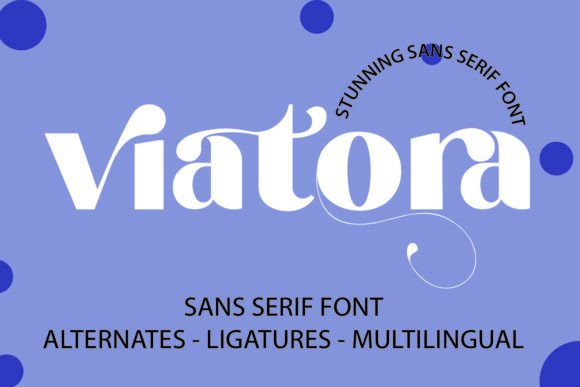
Are you looking for the perfect font to elevate your branding game? Look no further than Viatora Font, the best font for branding designed by hmtypes1. Viatora is a stylish and unique sans-serif font that will make your designs stand out from the crowd.
With its bold and playful letterforms featuring unconventional shapes and angles, Viatora adds personality and character to any project. Whether you're creating a new logo or designing product packaging, Viatora is the perfect font to make a lasting impression on your audience.
But Viatora isn't just stylish – it's also incredibly versatile. Thanks to its modern and eye-catching design, Viatora works seamlessly across a wide range of creative applications. Plus, with its PUA encoding, accessing all delightful glyphs and swashes has never been easier.
In short, Viatora Font is the must-have font for any creative looking to take their branding to the next level. Don't settle for boring and uninspired fonts – choose Viatora and make your designs truly unforgettable.